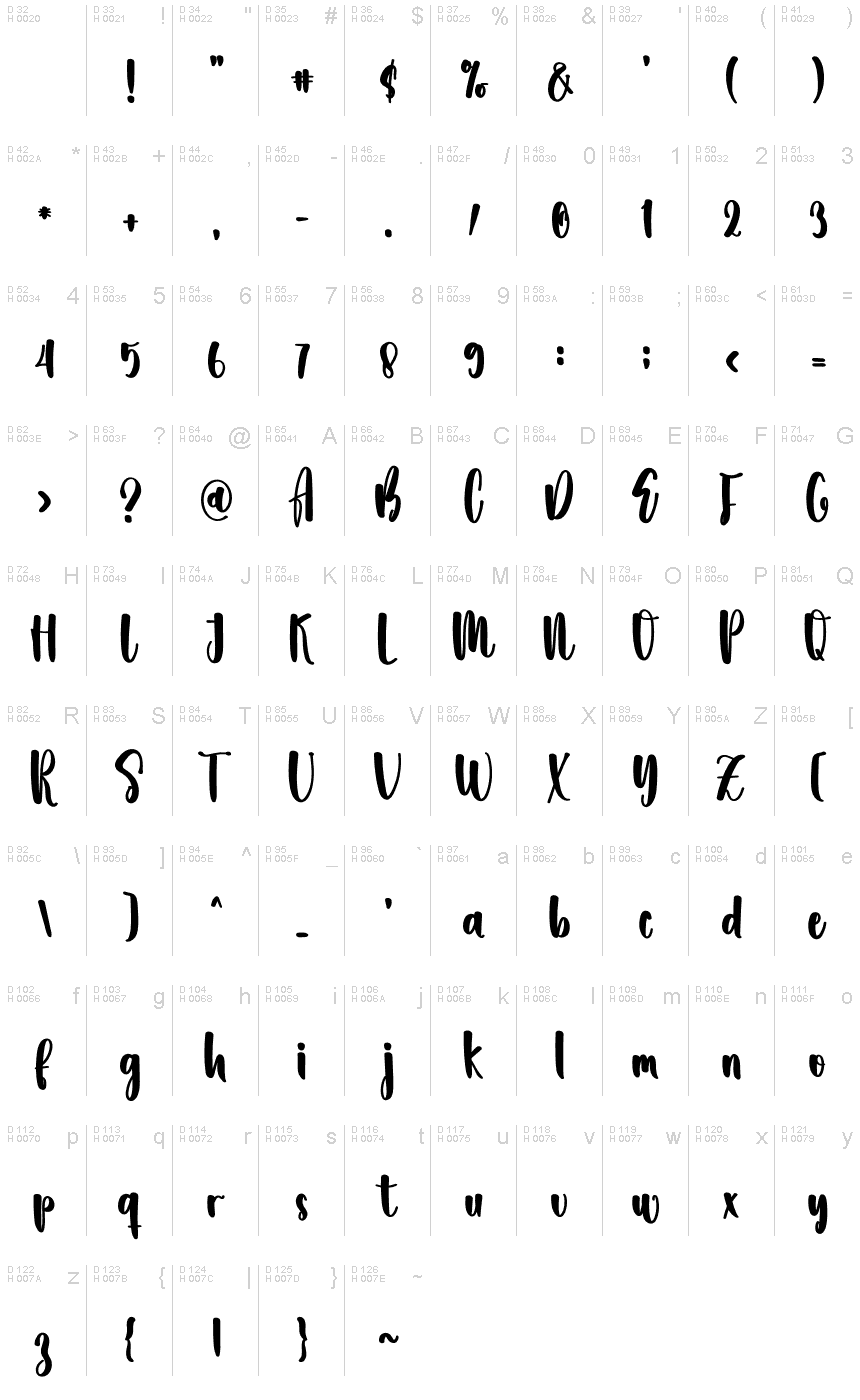
Buggies
Buggies, a captivating handwritten font by FreshtypeINK, adds an enchanting touch to your projects. With its semi-condensed width, this versatile typeface is perfect for various creative endeavors. Use it to infuse a whimsical charm into children's book illustrations or craft eye-catching logos for artisanal products. Buggies' playful strokes evoke a sense of warmth and authenticity, making it an excellent choice for greeting cards, wedding invitations, and social media graphics. Whether you're designing menus for trendy cafes or creating unique packaging designs, Buggies will effortlessly bring character and style to your artistic ventures.